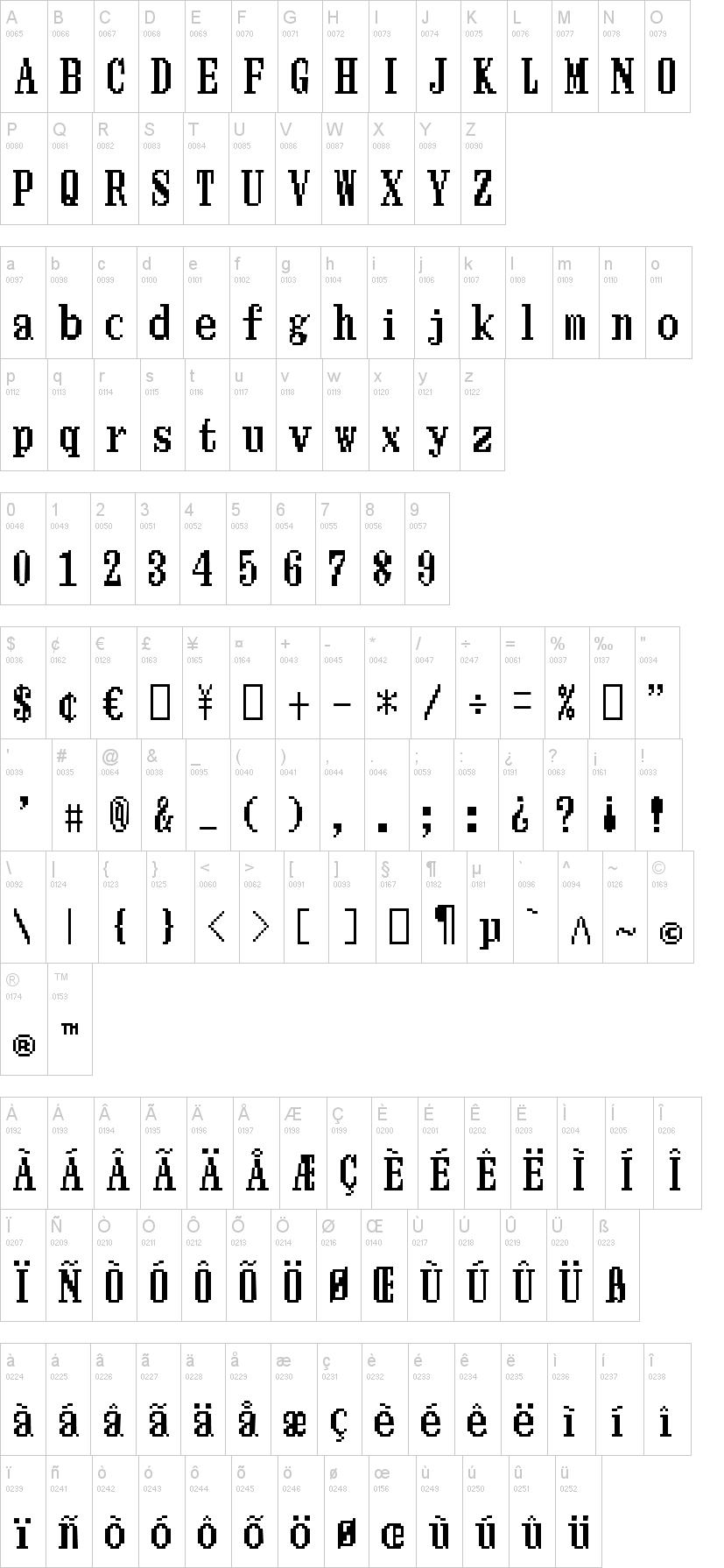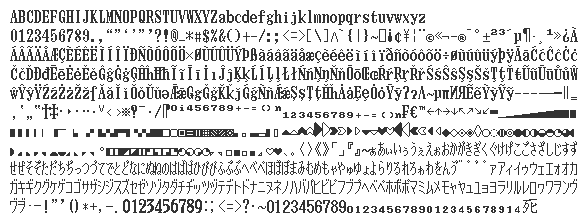
Note of the authorIshmeria is a modern-style serif pixel font recreation based on the original main text font appearing in the SNES video game Gemfire, known as Super Royal Blood in Japan, which was developed and released by Koei in 1992.
This font includes the full set of Japanese hiragana and katakana characters appearing in the Japanese version of the game and many additional characters, each one of them designed to match the spirit and style of the original font design.
759 characters total
Monospaced modern serif typeface
Countless additional special characters, diacritic variants, etc.
Complete original Japanese hiragana and katakana character sets
Different variants of regular and tiny numbers